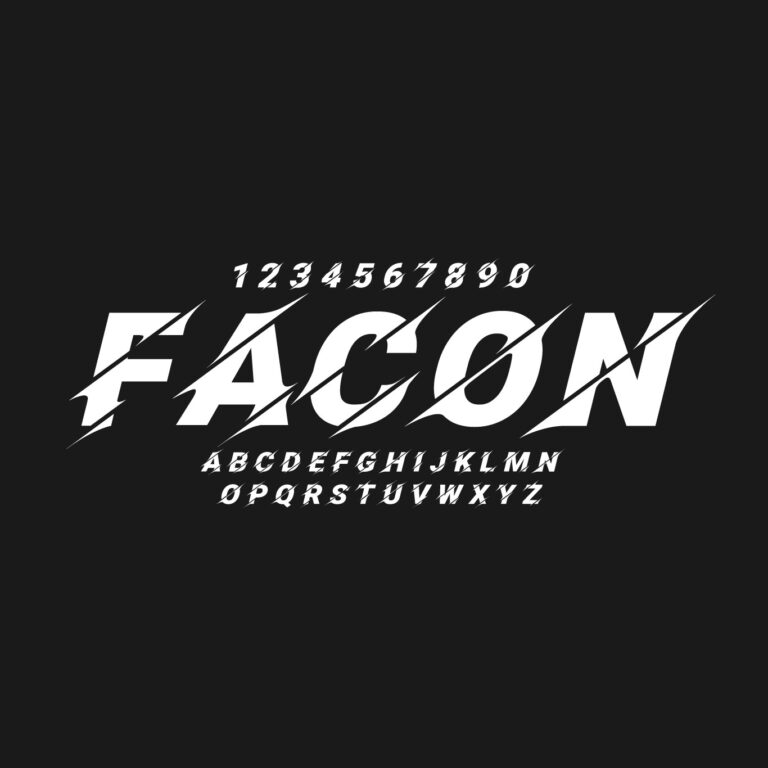
Facon is a bold display typeface with angular cuts, dynamic letterforms and a sporty visual character. It works well for racing graphics, sports posters, esports branding, team logos, event flyers, automotive visuals, gaming thumbnails, apparel graphics, social media designs and energetic title layouts.
Font Type: Display
Category: Sports Display Font / Racing Font
Visual Style: Sharp, dynamic, sporty, angular, energetic
Best For: Sports graphics, racing designs, esports logos, posters, apparel graphics, gaming thumbnails and event flyers